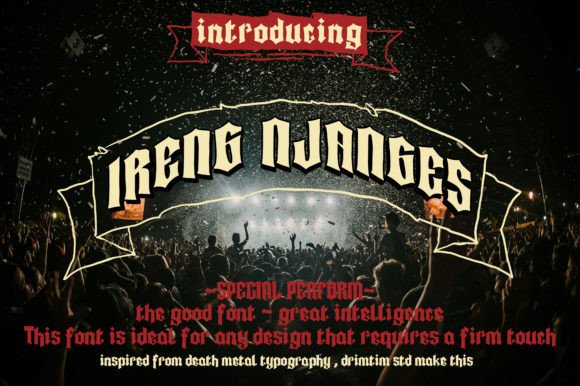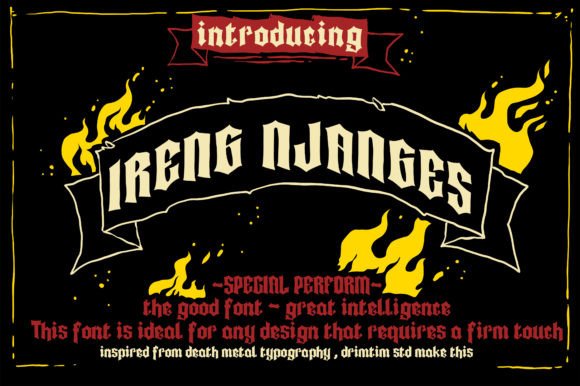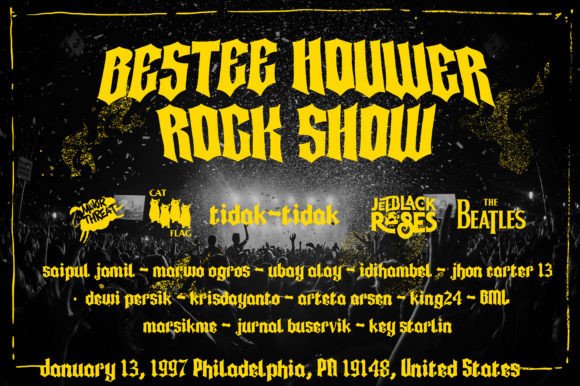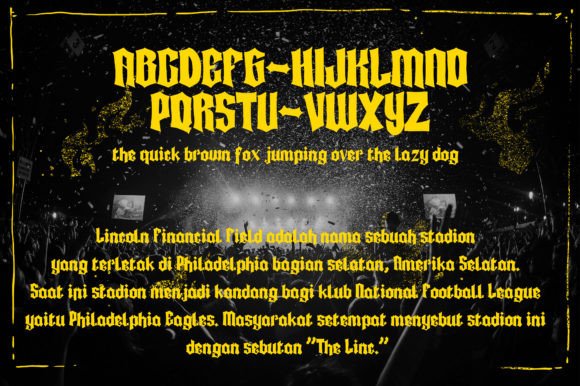
Ireng Njanges Font: A Bold Blackletter for Grunge & Metal Logos
About the Ireng Njanges Font
Discover the charm of Ireng Njanges Font. This font is a perfect blend of modern aesthetics and classic appeal. Ireng Njanges is a blackletter font with a nice heavy metal touch. This font is ideal for any design that requires a firm touch. Add it confidently to your projects, and you will love the results. Dramatic and featuring an urban style, this font will be a top choice for each of your casual designs.
Its strong, almost aggressive strokes make Ireng Njanges perfect for headlines, posters, and branding projects needing a bold statement. It excels in short impactful text, conveying a sense of rebellion and urban grit. Avoid using it for body copy or UI elements; the heavy weight and intricate details hinder readability in smaller sizes or extended text blocks.
Pair it with a clean sans-serif like Montserrat for contrast, balancing the blackletter’s intensity with a modern, legible counterpart. Alternatively, a geometric sans-serif such as Futura would offer a sharper, more architectural contrast, further emphasizing Ireng Njanges’s bold personality. For a slightly softer contrast, consider pairing it with a simple serif like Garamond.
The overall personality is powerful and edgy, best suited for brands projecting strength, rebellion, or a raw, urban aesthetic. Think streetwear, heavy metal music, or edgy graphic novels.